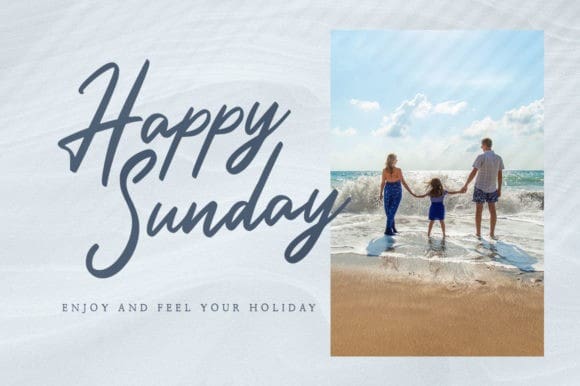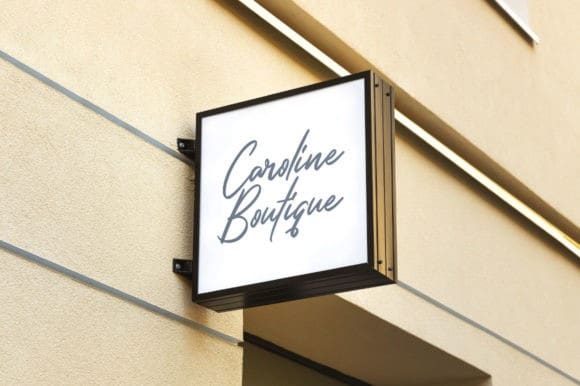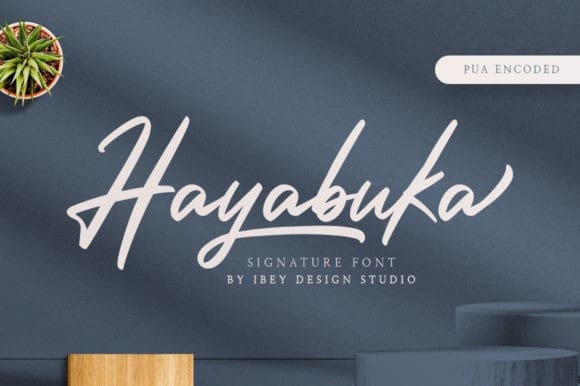
Hayabuka Script Font
Hayabuka Script Font is a signature font that lets you achieve a lovely handwritten vibe. Get inspired by its classic style and use it for watermark, business card, clothing, magazine, web, and any other design projects.